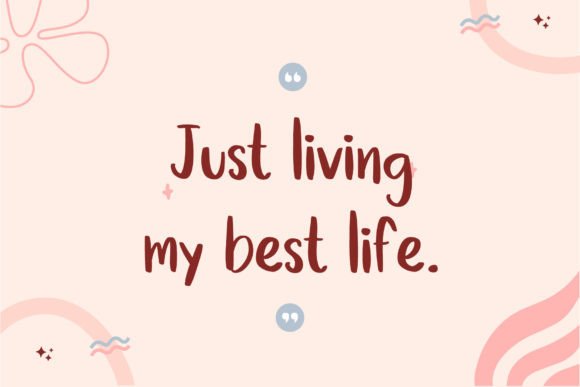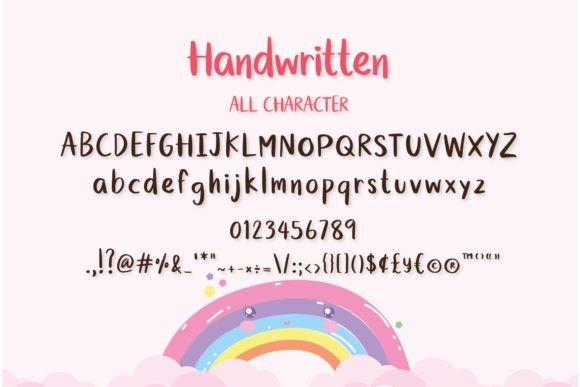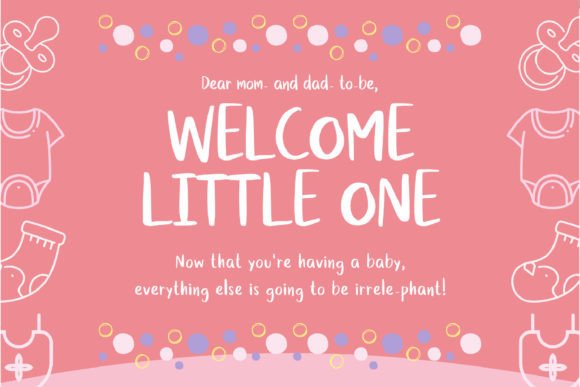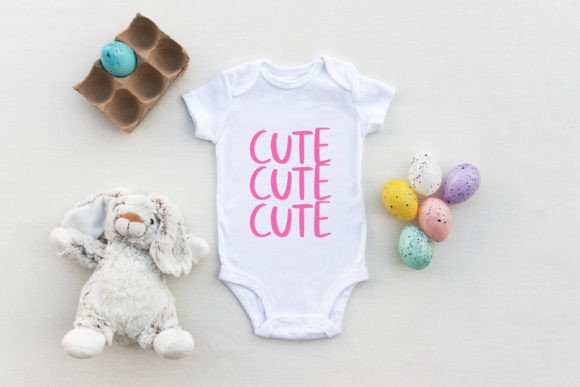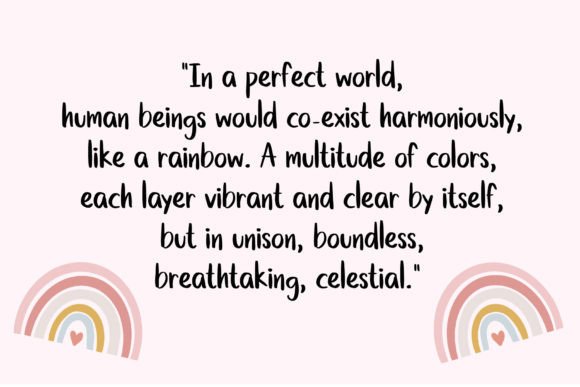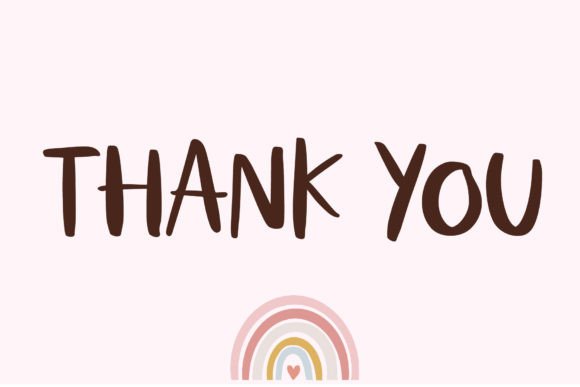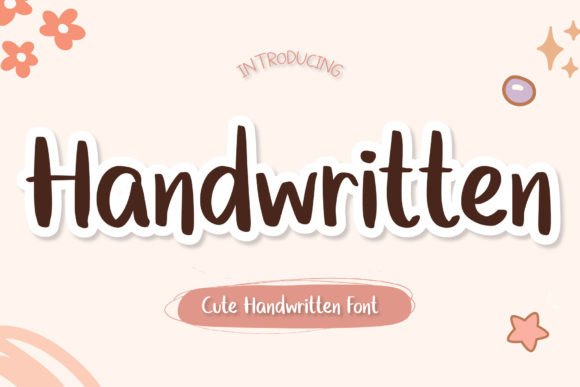
Introducing Handwritten Font: The Perfect Addition to Your Design Arsenal
Are you tired of using the same old fonts in your designs? Do you want to add a touch of personality and whimsy to your social media posts, posters, and greeting cards? Look no further than Handwritten Font, a cute and friendly handwritten font that’s sure to delight.
What is Handwritten Font?
Handwritten Font is a playful and quirky font that’s designed to bring a smile to your face. With its irregular letterforms and charming imperfections, this font is the perfect fit for designers and crafters who want to add a personal touch to their work.
Key Features of Handwritten Font
- Playful and Quirky: Handwritten Font is designed to be fun and lighthearted, making it perfect for social media posts, posters, and greeting cards.
- Cute and Friendly: The font’s irregular letterforms and charming imperfections give it a friendly and approachable feel.
- Versatile: Handwritten Font can be used for a wide range of design projects, from digital media to print materials.
- Easy to Read: Despite its playful nature, Handwritten Font is still easy to read, making it perfect for body text and captions.
Uses for Handwritten Font
So, what can you use Handwritten Font for? The possibilities are endless! Here are a few ideas to get you started:
- Social Media Posts: Add a touch of personality to your social media posts with Handwritten Font. It’s perfect for Instagram captions, Facebook posts, and Twitter updates.
- Posters and Flyers: Create eye-catching posters and flyers with Handwritten Font. It’s a great way to add a playful touch to your marketing materials.
- Greeting Cards: Handwritten Font is perfect for creating cute and personalized greeting cards for special occasions.
- Blog Posts: Add a touch of whimsy to your blog posts with Handwritten Font. It’s a great way to make your content stand out.
Tips for Using Handwritten Font
Here are a few tips for getting the most out of Handwritten Font:
- Use it Sparingly: While Handwritten Font is playful and fun, it can be overwhelming if used too much. Use it sparingly to add a touch of personality to your designs.
- Pair it with Other Fonts: Handwritten Font pairs well with other fonts, such as sans-serif fonts and serif fonts. Experiment with different combinations to find the perfect look for your design.
- Experiment with Colors: Handwritten Font looks great in a variety of colors. Experiment with different colors to find the perfect look for your design.
Handwritten Font is a cute and friendly handwritten font that’s perfect for designers and crafters who want to add a touch of personality to their work. With its playful and quirky nature, this font is sure to delight. Whether you’re creating social media posts, posters, greeting cards, or blog posts, Handwritten Font is the perfect addition to your design arsenal.